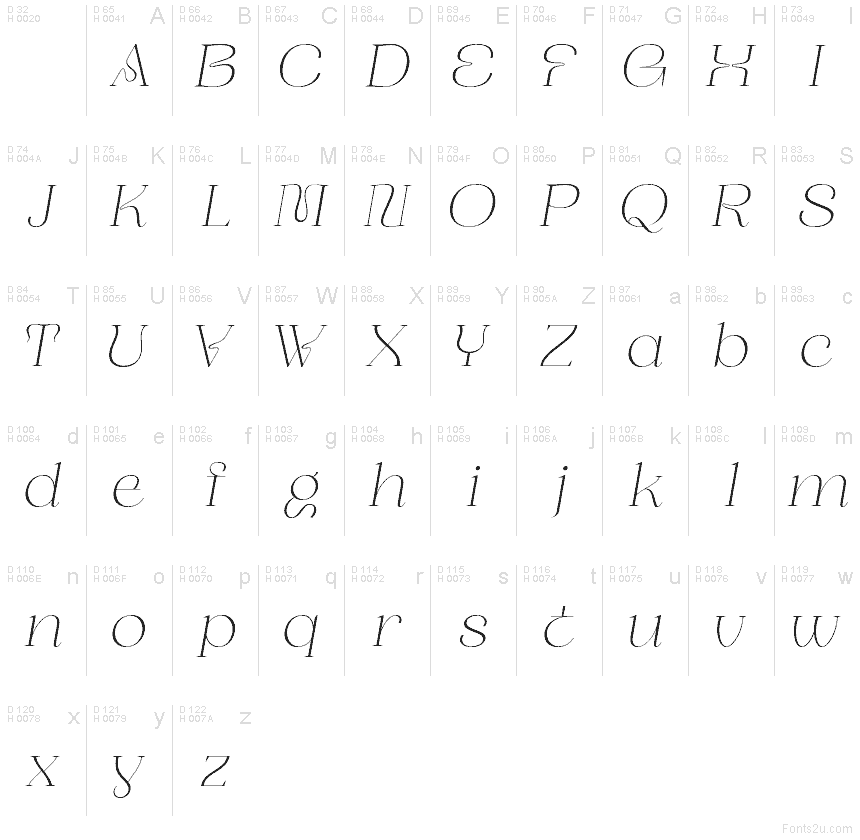
Manuscribe-Ita10
Manuscribe Ita10 font by Craft Supply Co. is a display light font that combines cursive influence and a touch of artistic flair. This elegant font has sophisticated yet delicate letters with noticeable serifs for classic charm. It’s perfect for getting noticed and drawing attention from readers in an instant. Its vintage feel makes it unique, special, glamorous, and eye-catching.
Manuscribe Ita10